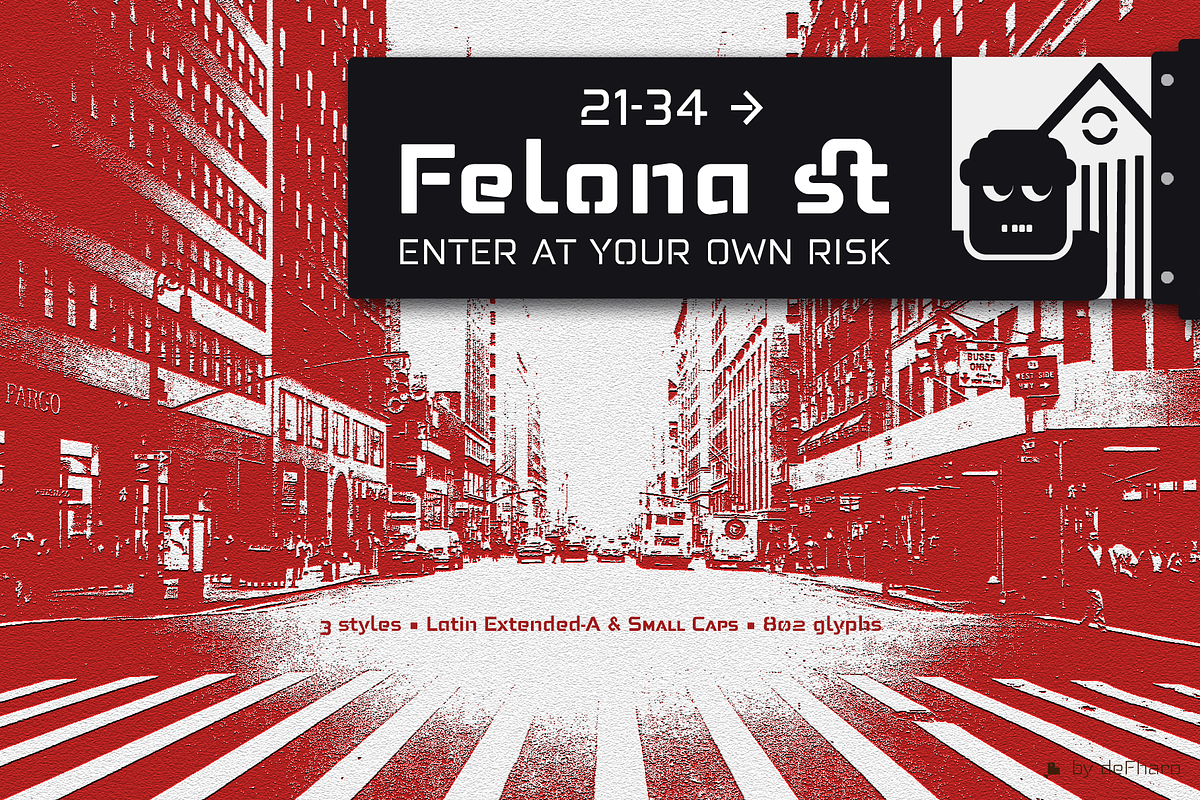
Please note, to use this font for commercial purposes, you must purchase the full version. Felona St is a versatile font family consisting of 6 unique neo stencil fonts, each designed to add an industrial and modern touch to your designs. Perfect for branding, logos, posters, and creative projects, these fonts offer a bold and dynamic style that works well in both digital and print designs. Whether you're designing for an urban brand, a contemporary campaign, or a stylish product, Felona St brings a modern, edgy feel to your work. Test it out and enjoy free download access for personal use. Explore the power of Felona St - 6 Neo Stencil Fonts Free Download before purchasing the commercial license. Add a cutting-edge, industrial vibe to your designs with Felona St.